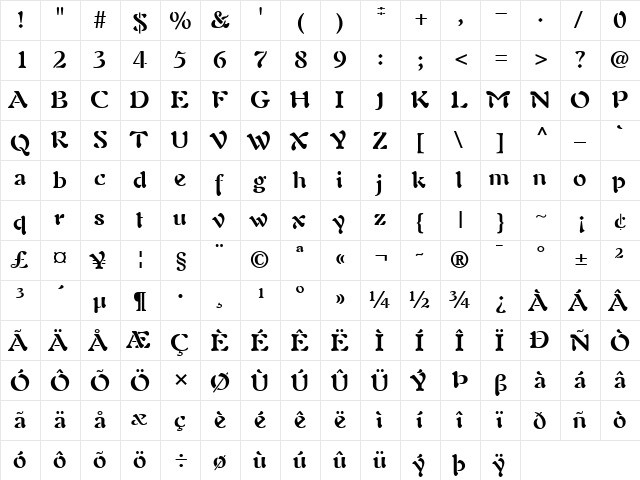
Auriol Bold
Design Context for Auriol Typeface
Auriol is a composed and adaptable typeface that performs quietly and consistently across a wide range of design contexts. The heavy weight commands attention and anchors typographic hierarchies.